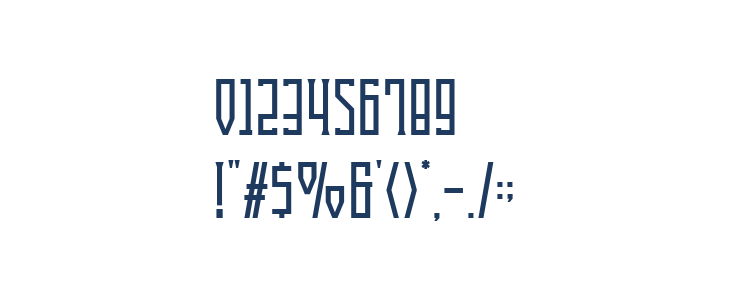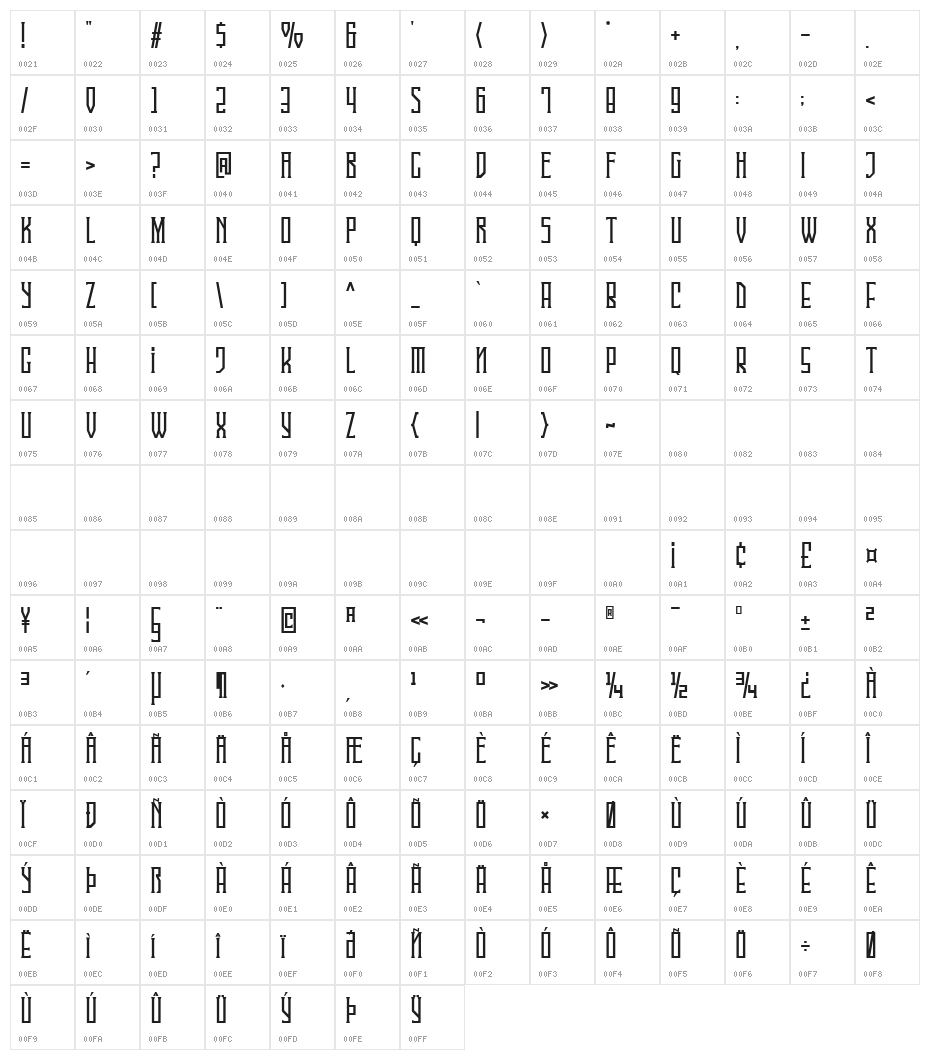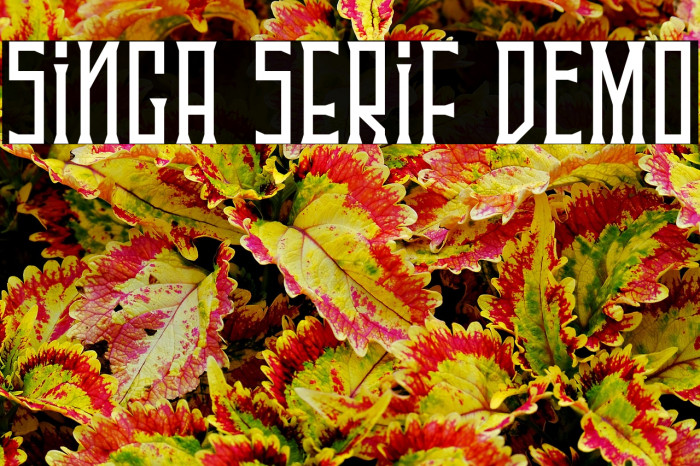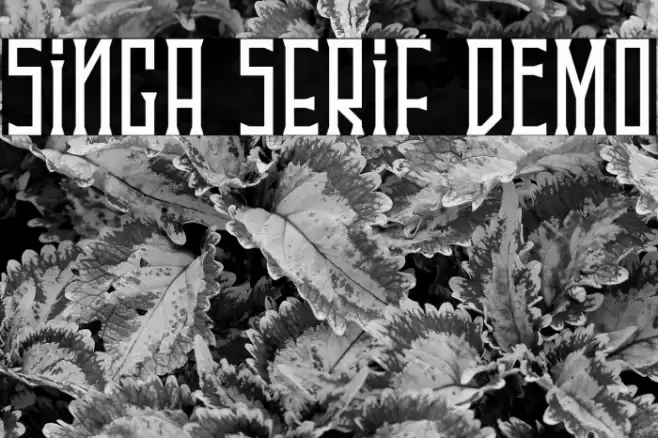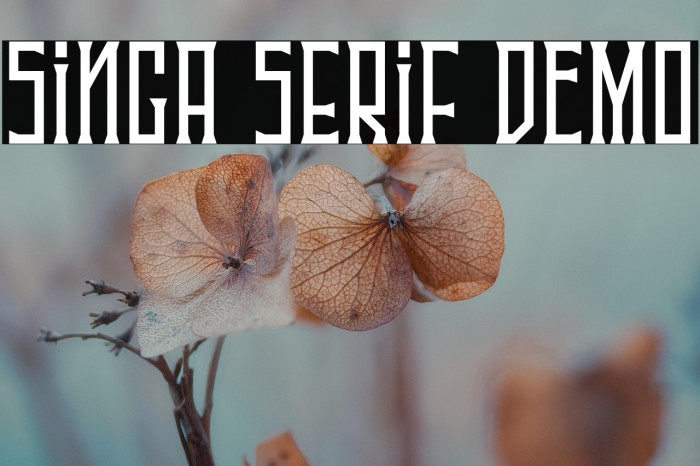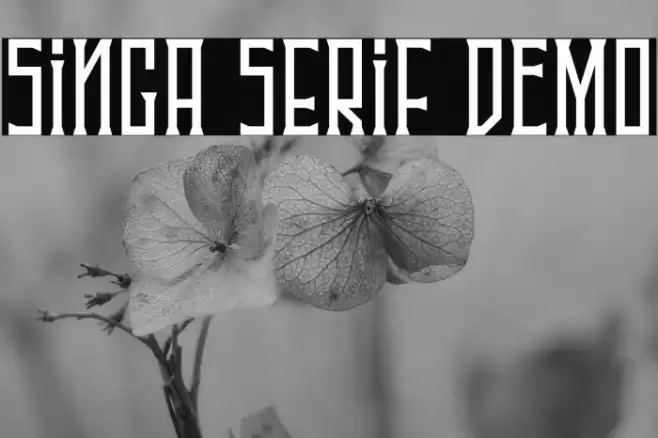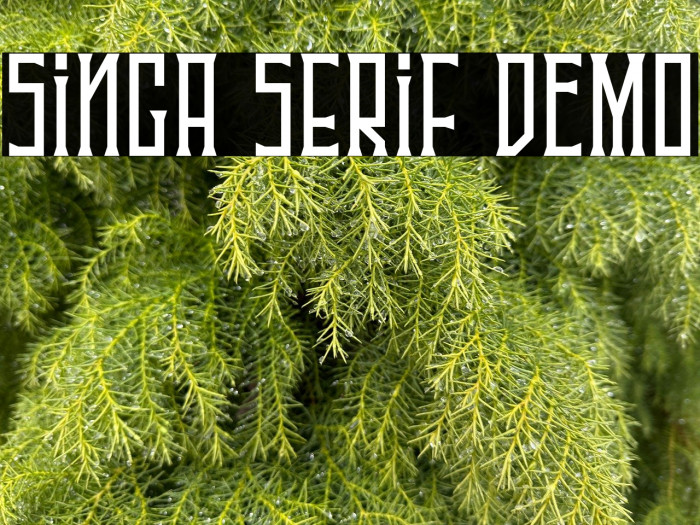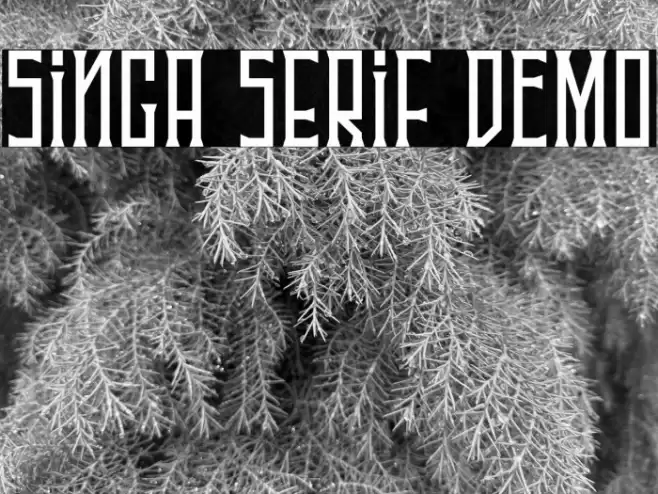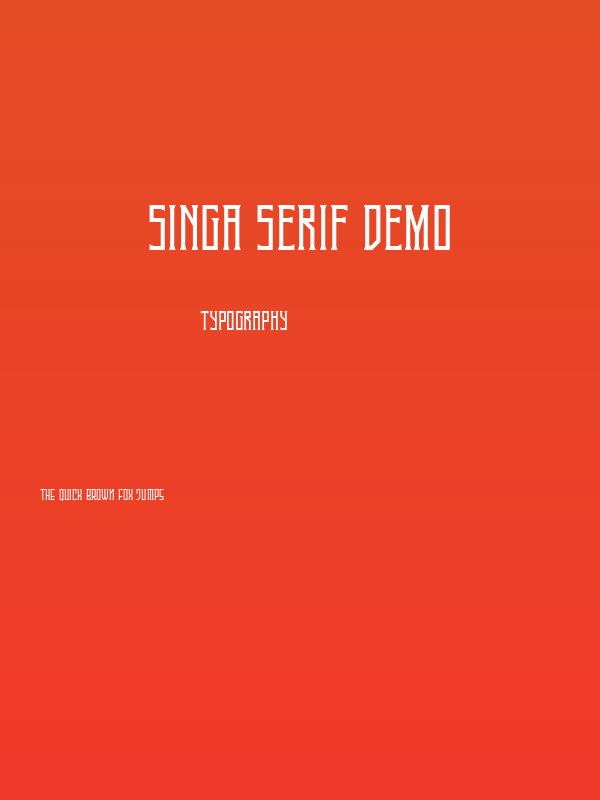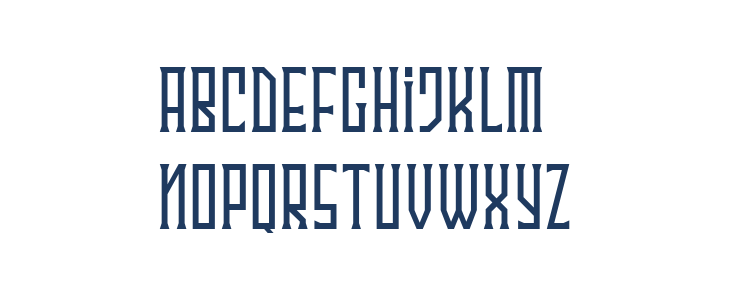
Singa Serif DEMO Font
Singa Serif DEMO Description
This font features a bold and striking design with sharp, angular serifs that give it a distinctive and modern appearance. The uppercase letters are tall and narrow, with consistent stroke widths that create a uniform look across the alphabet. The lowercase letters maintain the same angular style, ensuring cohesion throughout the typeface. Numbers and special characters are designed with the same attention to detail, making them easily legible while maintaining the overall aesthetic. The font's geometric nature and high contrast between strokes make it ideal for impactful and attention-grabbing designs.
| Proposed Projects | Ideal for branding, posters, headlines, and any design requiring a modern and bold statement. |